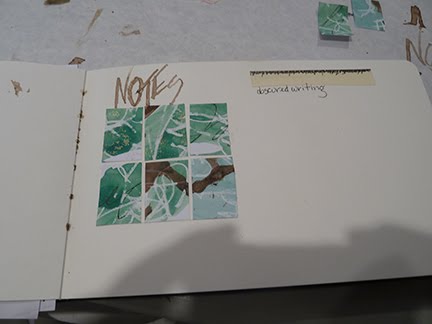
With permission, I share some more photos from Laurie Doctor's recent journal/sketchbook workshop at Preston Arts Center in Louisville. See my last post for a few pix from my first day.
Here is Connie Newbank's collage - our final project was to make a collage of 6-9 equal parts from various pages we'd done over the weekend.
Here is Barb Beattie's collage.
Here is a photo of the lovely fruits and veggies that Laurie procured for our contour drawing exercises.
Here are Barb's contour drawn asparagus spears.
Here are Deb Warnat's contour drawn apples.
Here's another of Deb's pages.
Here is Deb's collage page.
Here is my collage.
Not really done in the workshop, but done ahead for the workshop, I decided to save in my journals the many four leafed clovers I find. I have some pages with the clovers taped over, but these were affixed with matte medium.
Here is what we were all there for - Laurie's exciting work. I for one hope to achieve something like her integral whole from various five minute sessions. Laurie's pages may be worked on for only five minutes at a time, or completed in one sitting, but they always seem to have such life. The contrasting letter styles and colors and weights all come together beautifully.
Here is Marilynn Swan's collage. 'Little jewels' are what we called the bright spots of color.
Here is Marilyn Fischer's collage.
Another of Marilyn's pages.
Patty Bertsch's tiny black and white collage.